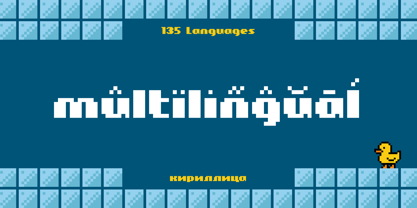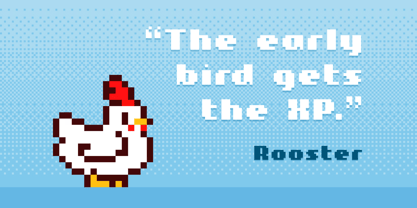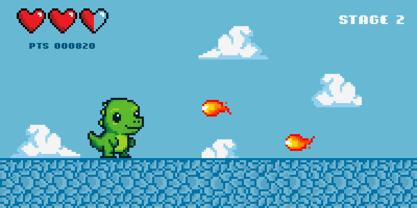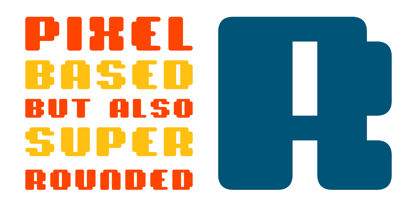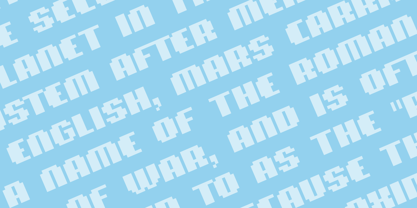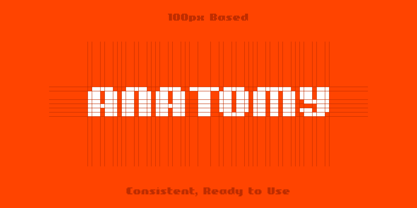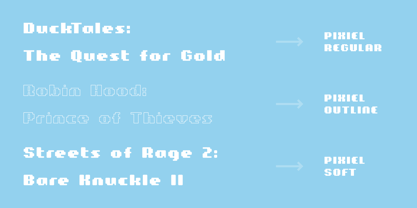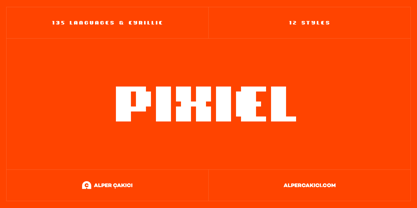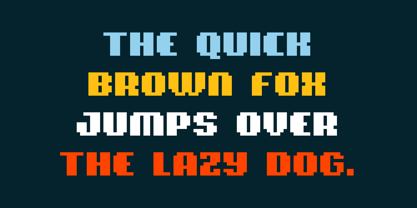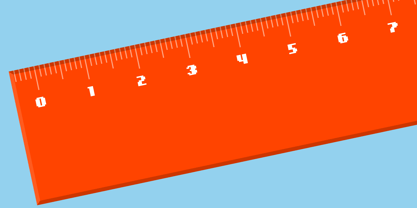
Pixiel
by AlperCakici
The Pixiel Font Family was designed by Alper Çakıcı and published by AlperCakici. Pixiel contains 12 styles and family package options. More about this family
Pixiel is a modern pixel typeface crafted for both retro charm and contemporary clarity. Designed by Alper Çakıcı, this 12-style family takes the beloved 8-bit aesthetic to a refined, flexible level — perfect for games, branding, motion graphics, and digital art that celebrate nostalgic character and modern design precision. From crisp Regular and stylish Inline to expressive Outline, Shadow, and Rounded variants, Pixiel brings dimension and personality to every pixel. Each style is drawn with a consistent grid logic for flawless alignment and legibility — whether used in menus, splash screens, logos, or posters. Supporting over 135 languages, including full Cyrillic, Pixiel is built for global creativity. Its extended style range makes it easy to shift tone — from bold and techy to cute and whimsical — while maintaining that signature pixel-perfect rhythm. FAMILY DETAILS: Styles (12): Regular, Inline, Outline, Rounded, Rounded Inline, Rounded Outline, Rounded Shadow, Soft, Soft Inline, Soft Outline, Soft Shadow Languages: 135+ (including Cyrillic) Perfect for: Games, logos, UI, posters, retro visuals, pixel art, and display use Bring your words to life — Pixiel turns pixels into personality.